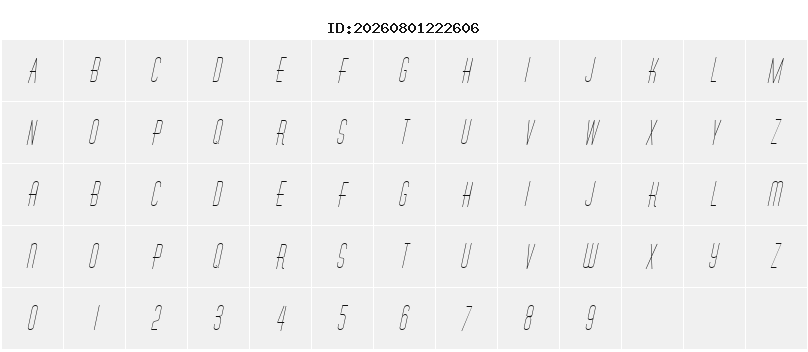
• Font Name: Melanin
• Font Style: Italique
• Font ID: Weatherly Systems, Inc. Melanin Italic
• Full Font Name: Melanin Italique
• Version: W.S.I. Int'l v1.1 for GSP: 6/20/95
• PostScript Name: MelaninItalic
About Melanin.ttf
Melanin.ttf is a modern, elegant sans-serif font designed for ultimate readability and visual harmony. Perfect for branding, headlines, web design, and print materials.